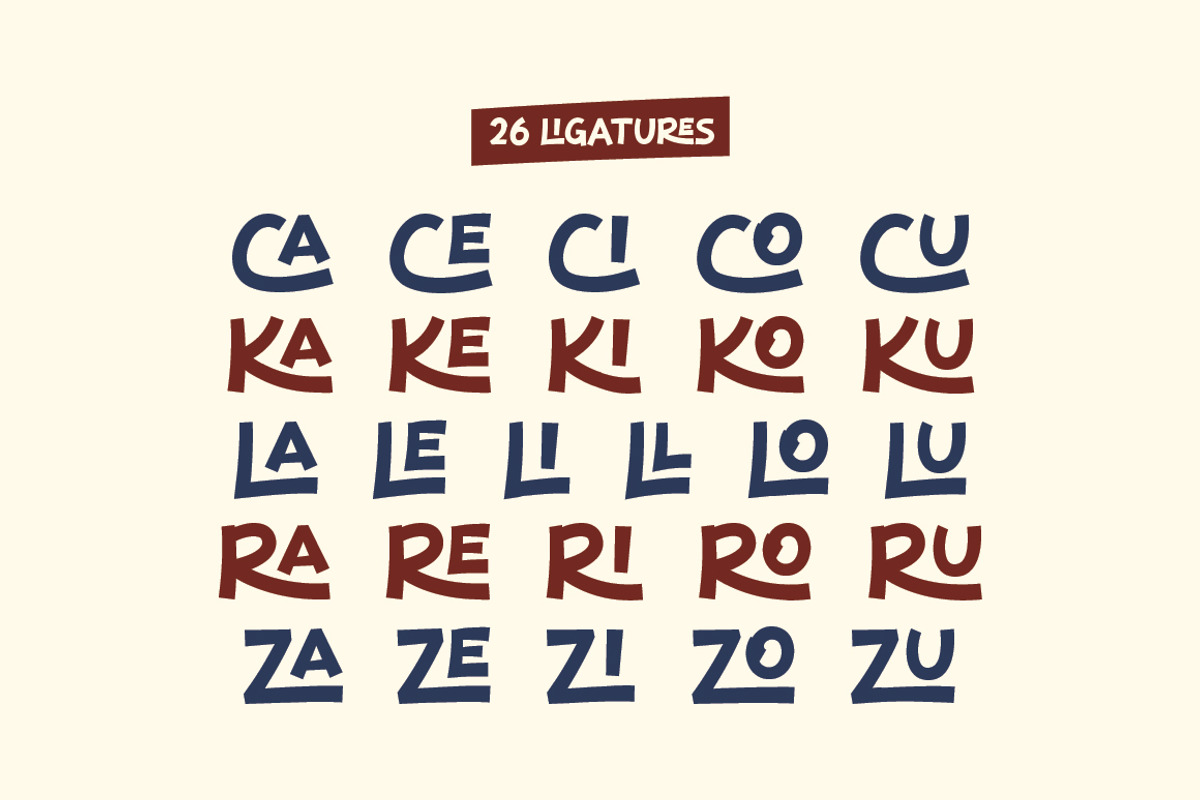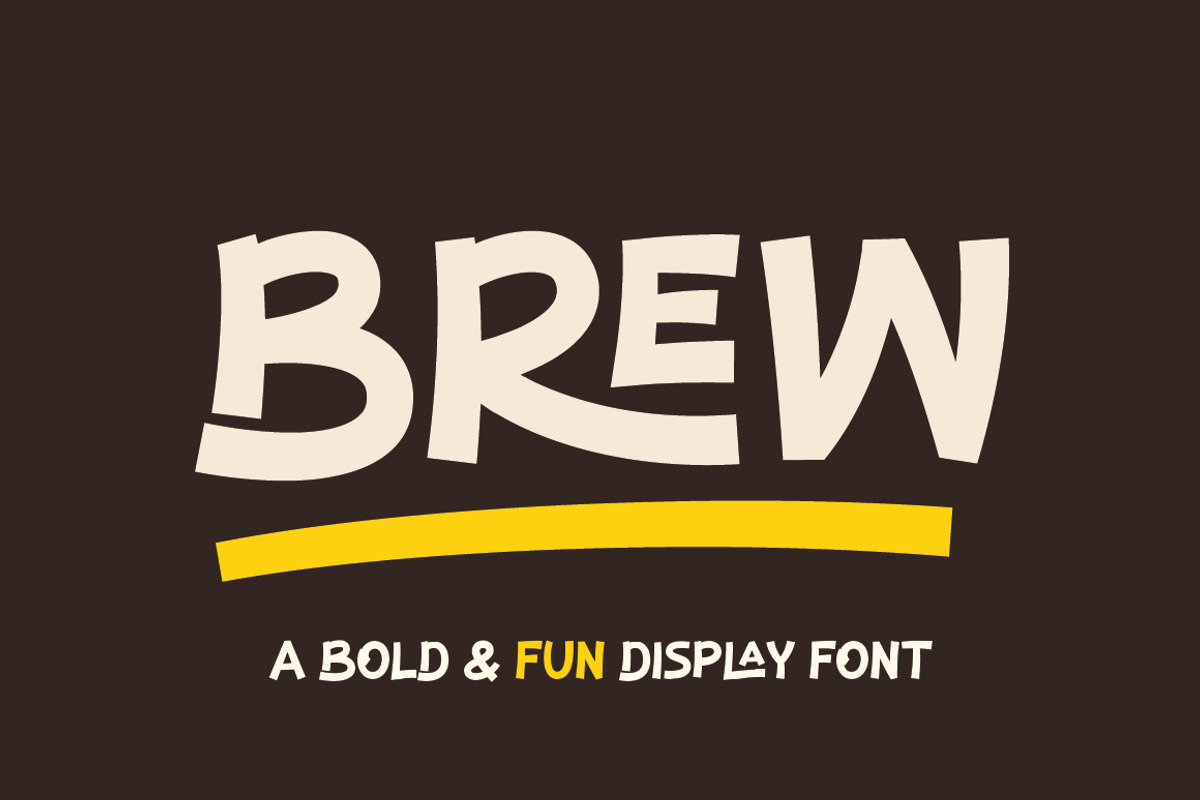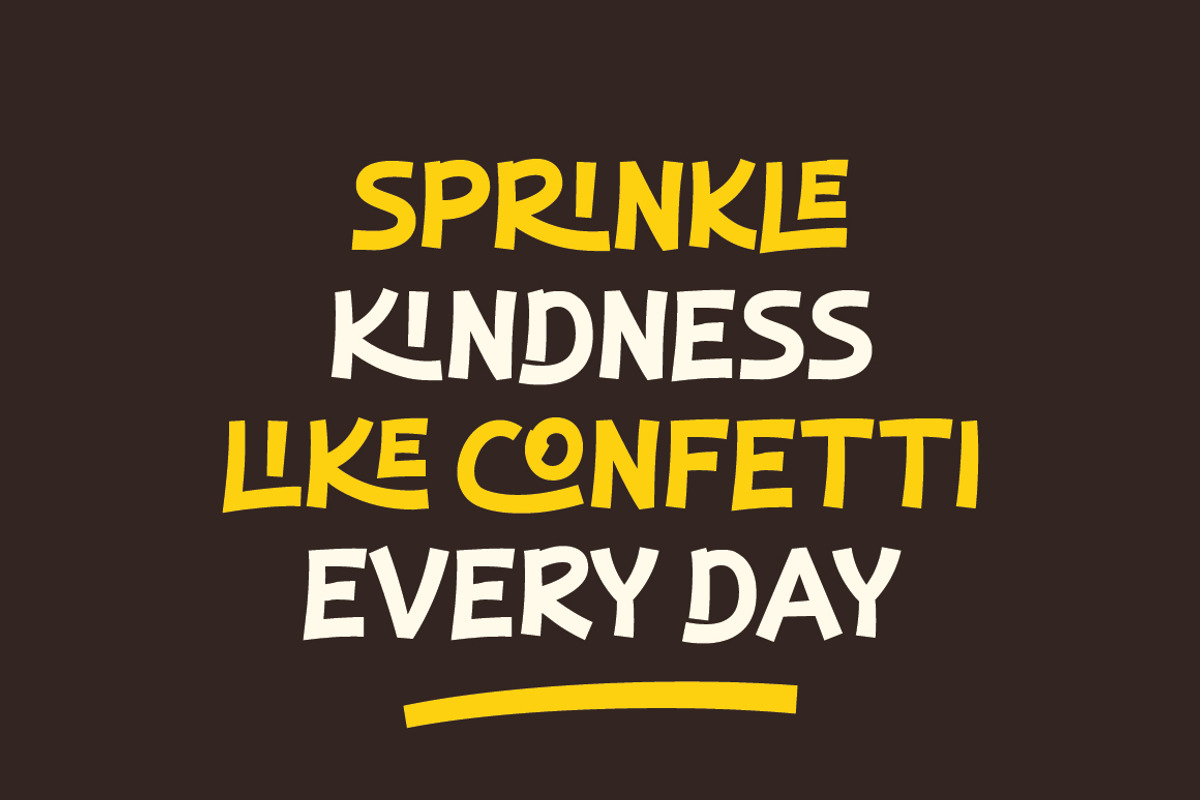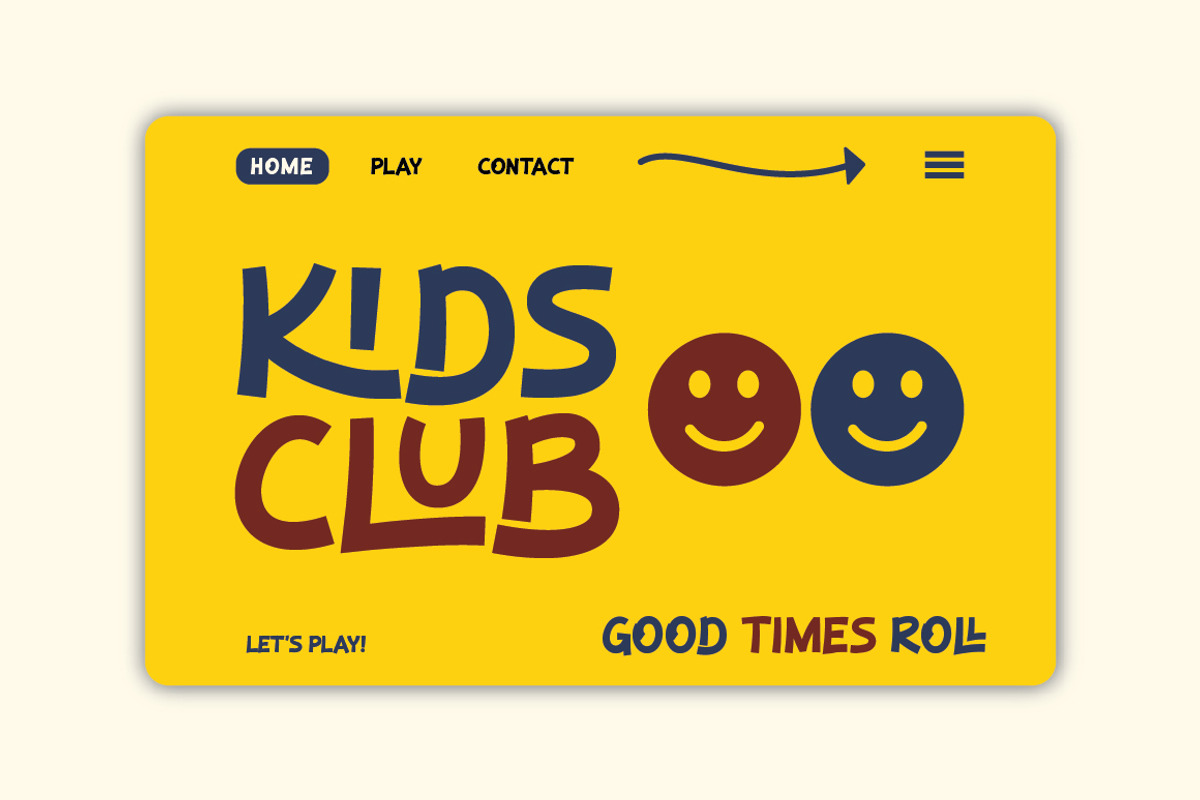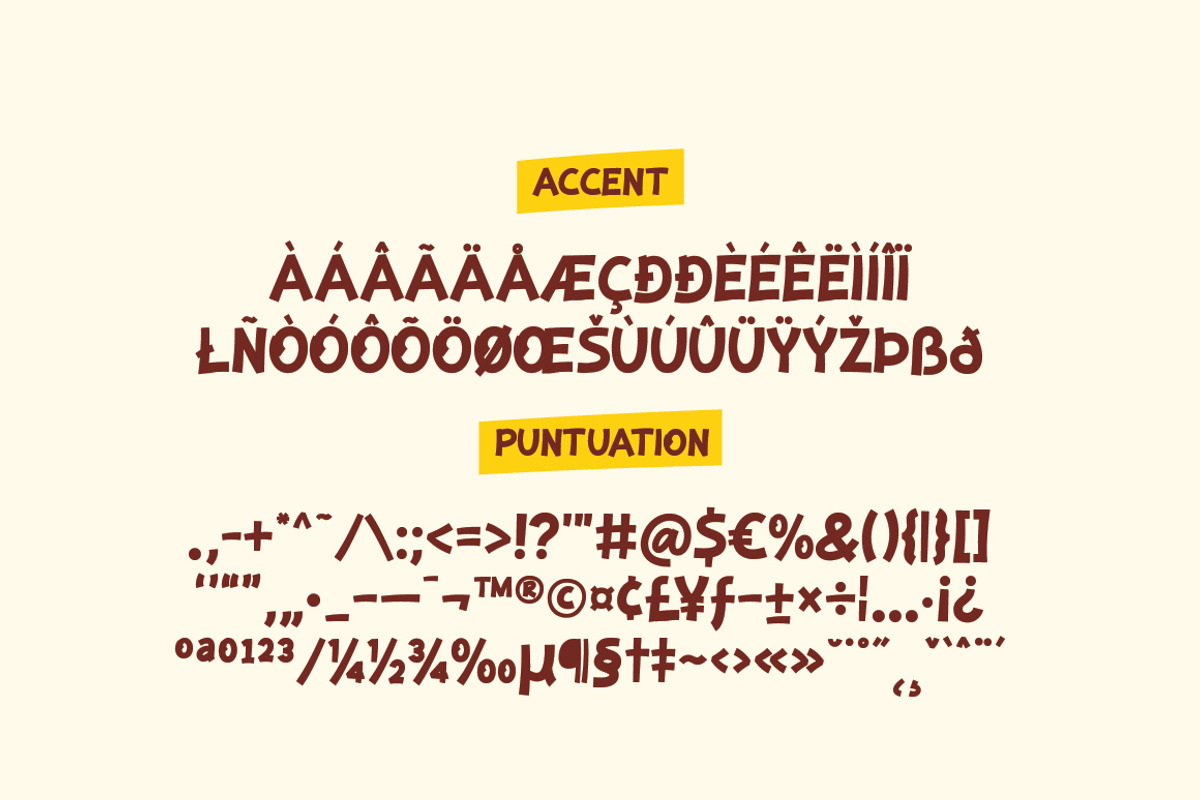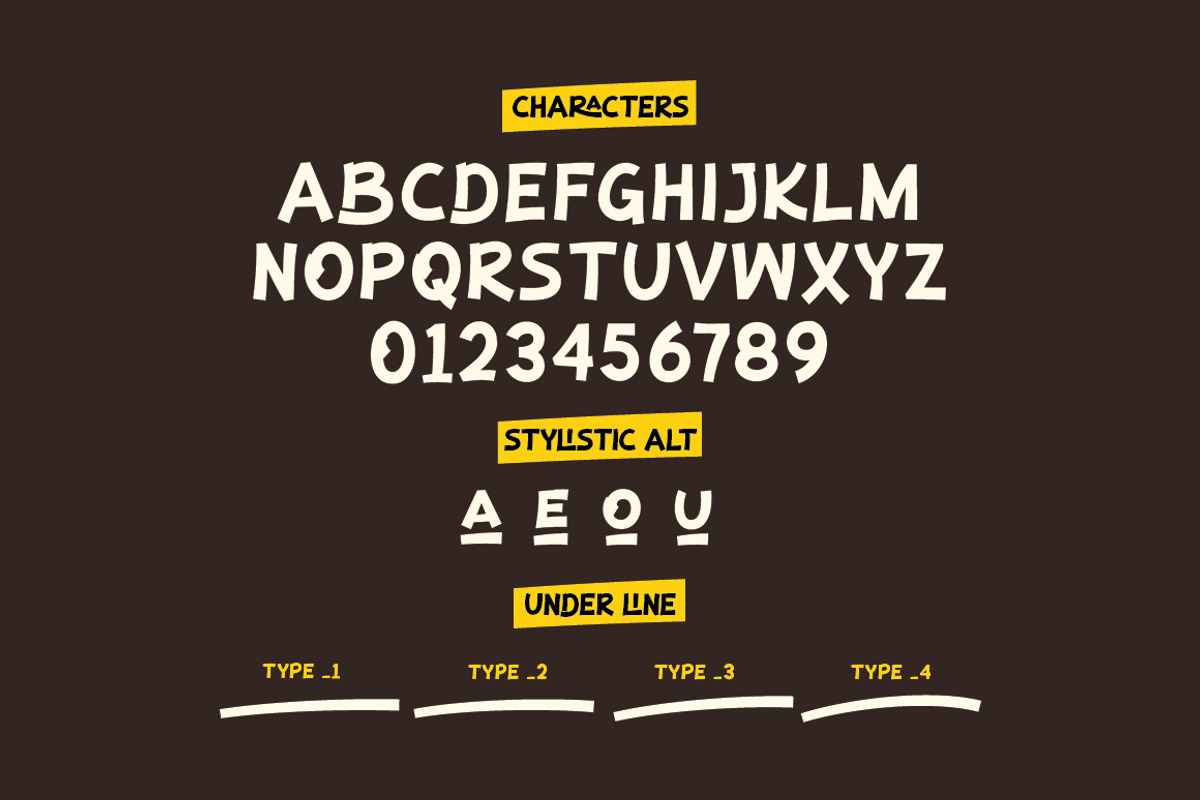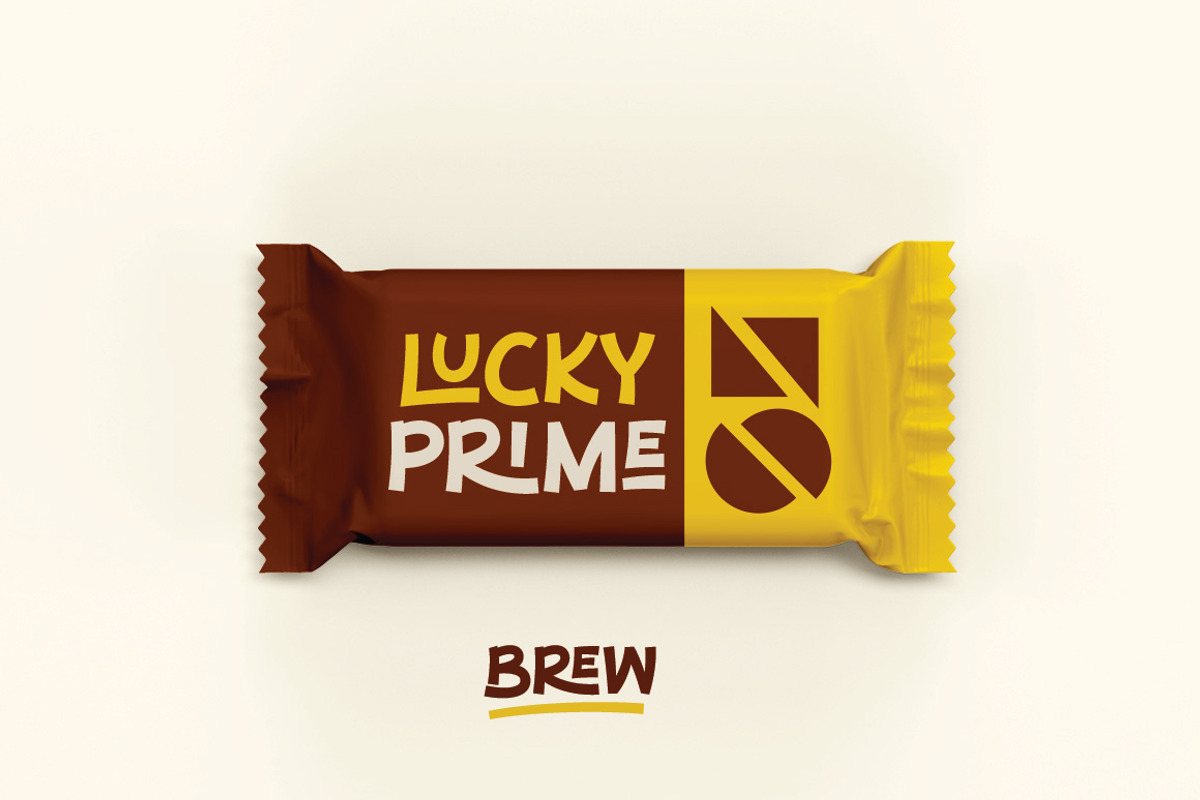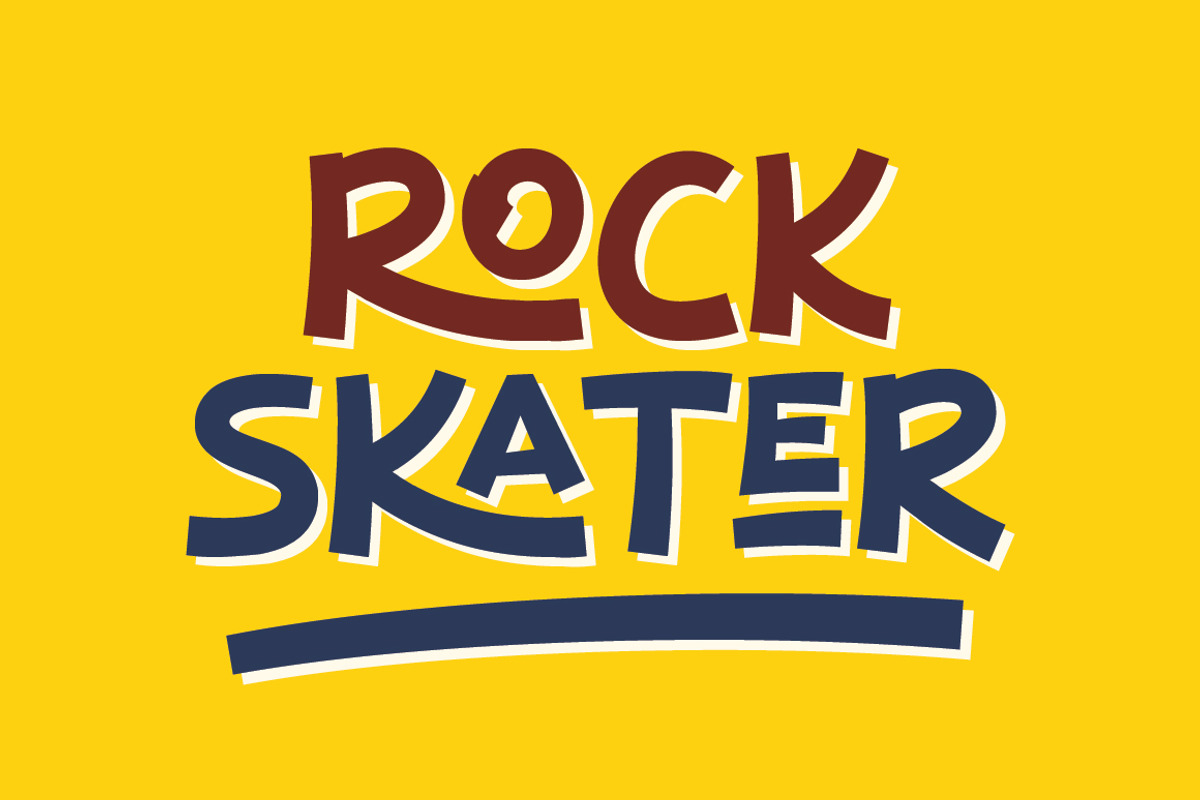
Brew – Bold & Fun Display Font
Brew is a bold and fun display font perfect for playful, energetic designs. It features 26 ligatures and plus stylistic alternates featuring underline accents for A, E, O, and U, giving your typography extra flair and a custom feel. Ideal for kids' projects, streetwear branding, posters, merchandise, and creative social content.
- All Caps
- 26 ligatures
- Stylistic alternates (A, E, O, U with underline)
- Punctuation & symbols
- PUA Encoded & Multilingual support